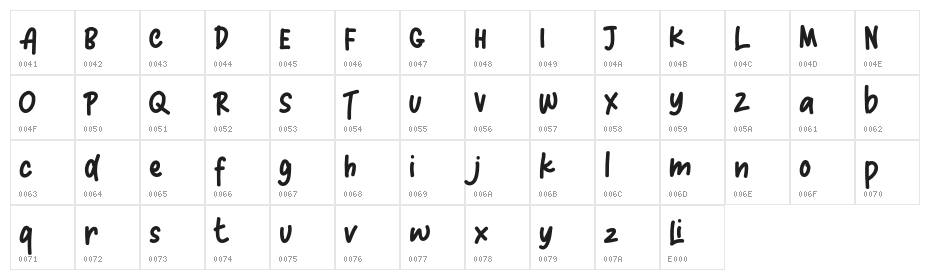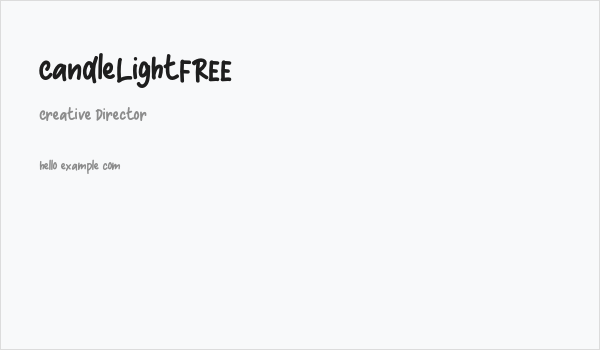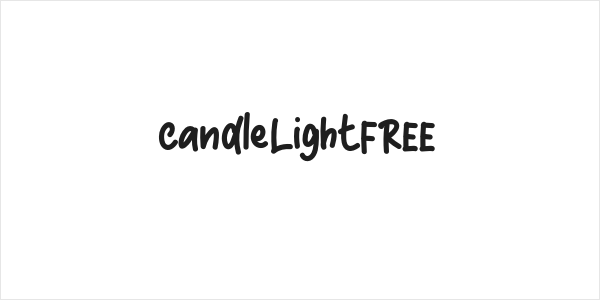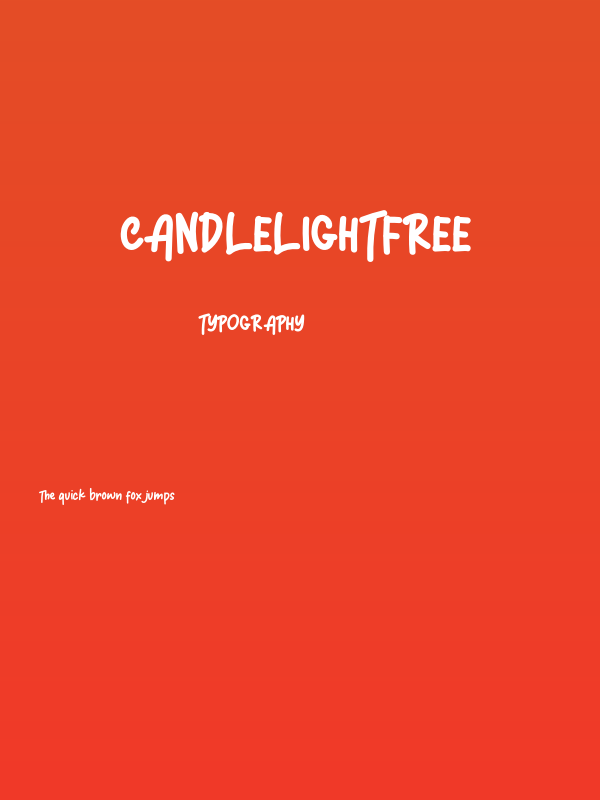
CandleLightFREE Font
CandleLightFREE Description
This font features a playful and bold handwritten style, characterized by its thick strokes and rounded edges. The letters are slightly slanted, giving a casual and friendly appearance. The uppercase and lowercase letters maintain a consistent style, with a smooth flow and uniform thickness. The numbers and special characters are designed to match the overall aesthetic, ensuring a cohesive look across all text. This font is ideal for projects that require a personal touch, such as invitations, greeting cards, or playful branding.
| Proposed Projects | Ideal for invitations, greeting cards, playful branding, and casual designs. |